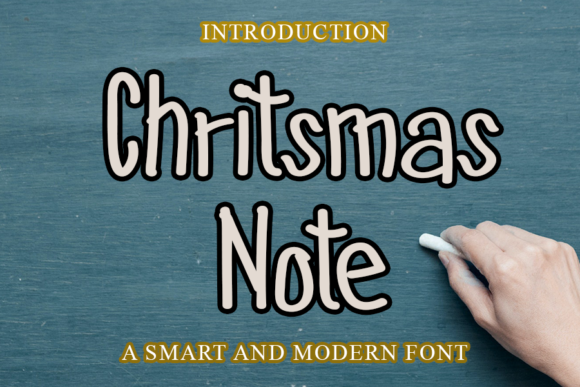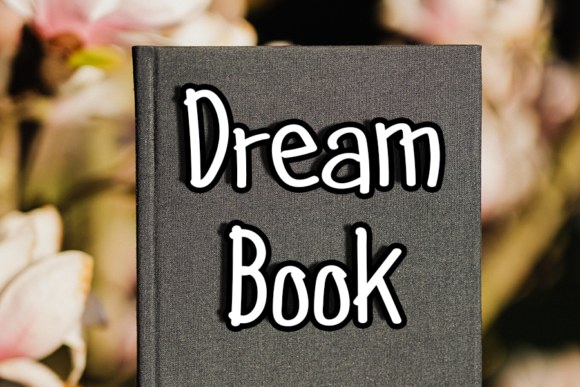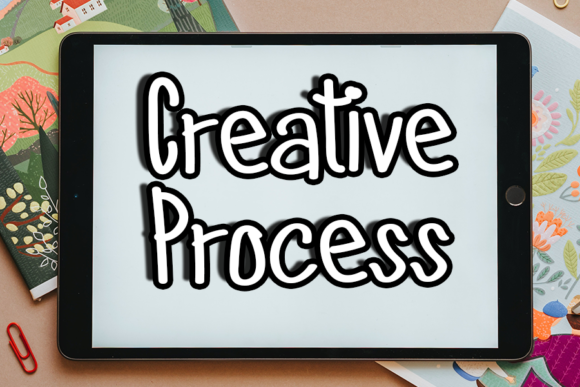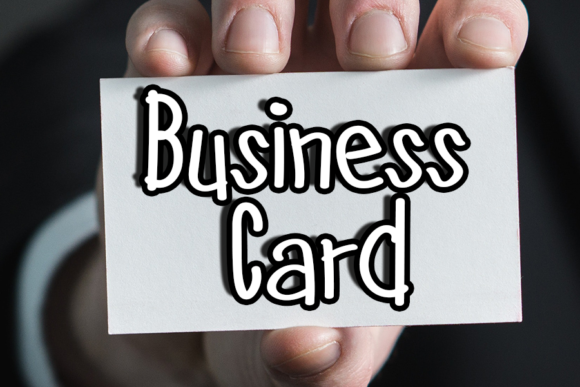
Chritsmas Note Font
About Chritsmas Note Font
Chritsmas Note is a tall and friendly handwritten font.This font looks incredibly adept on a wide variety of contexts!